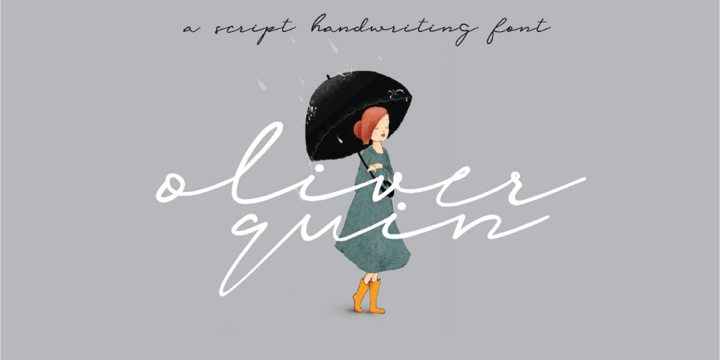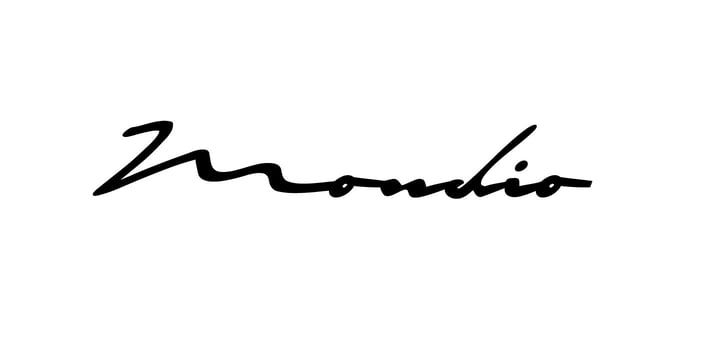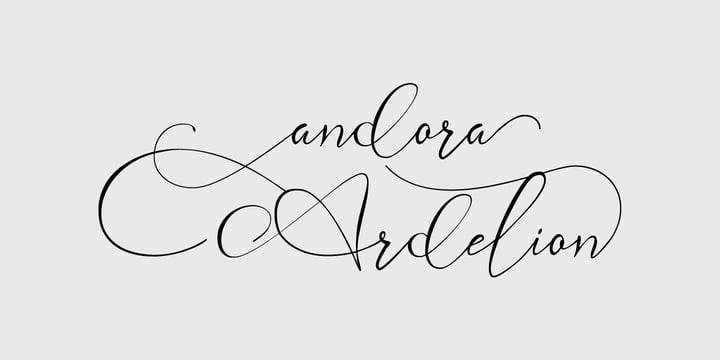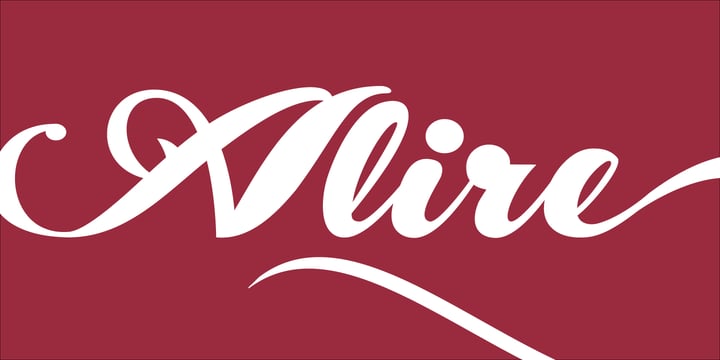
August Script Bundle
August Script Bundle: Handwritten Script Font Bundle – A Collection of Charming Handwritten Fonts. Bring a personal, authentic, and creative touch to your designs with this stunning collection of handwritten script fonts. This bundle features a variety of expressive typefaces inspired by natural handwriting, casual lettering, modern calligraphy, and stylish signature scripts. Each font is crafted to infuse warmth, personality, and a handmade feel into your creative projects. Whether you're designing logos, branding materials, wedding invitations, greeting cards, social media graphics, packaging, posters, quotes, product labels, merchandise, stationery, or digital designs, this bundle offers a wealth of typography options to explore. With diverse handwritten styles included, you can effortlessly switch between elegant, casual, playful, romantic, and contemporary looks tailored to your project needs. Perfect for: Logos & Branding, Wedding Invitations, Greeting Cards, Social Media Designs, Quotes & Typography, Packaging & Labels, Posters & Flyers, T-Shirt & Merchandise, Stationery, Blog & Website Graphics, Digital Products, Cricut & Cutting Projects. Add a natural handwritten personality to your designs with this versatile Handwritten Script Font Bundle — an exceptional typography collection for designers, crafters, small businesses, and creative projects.